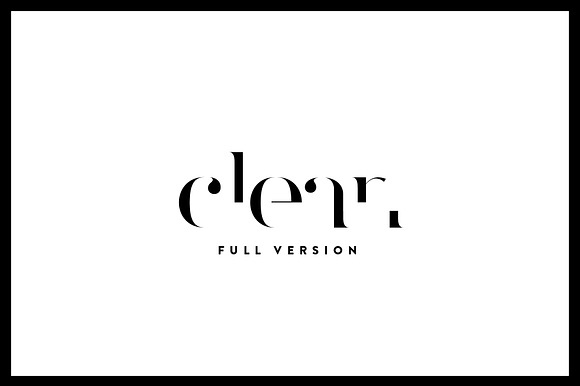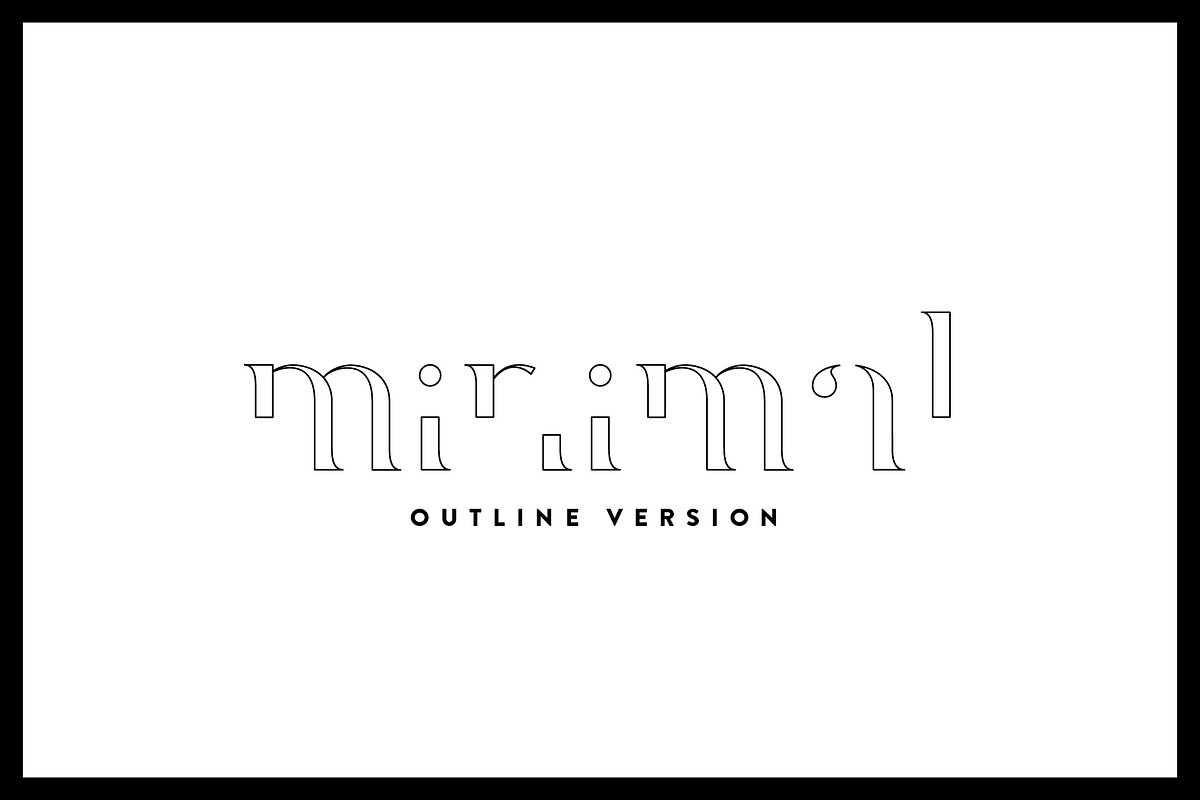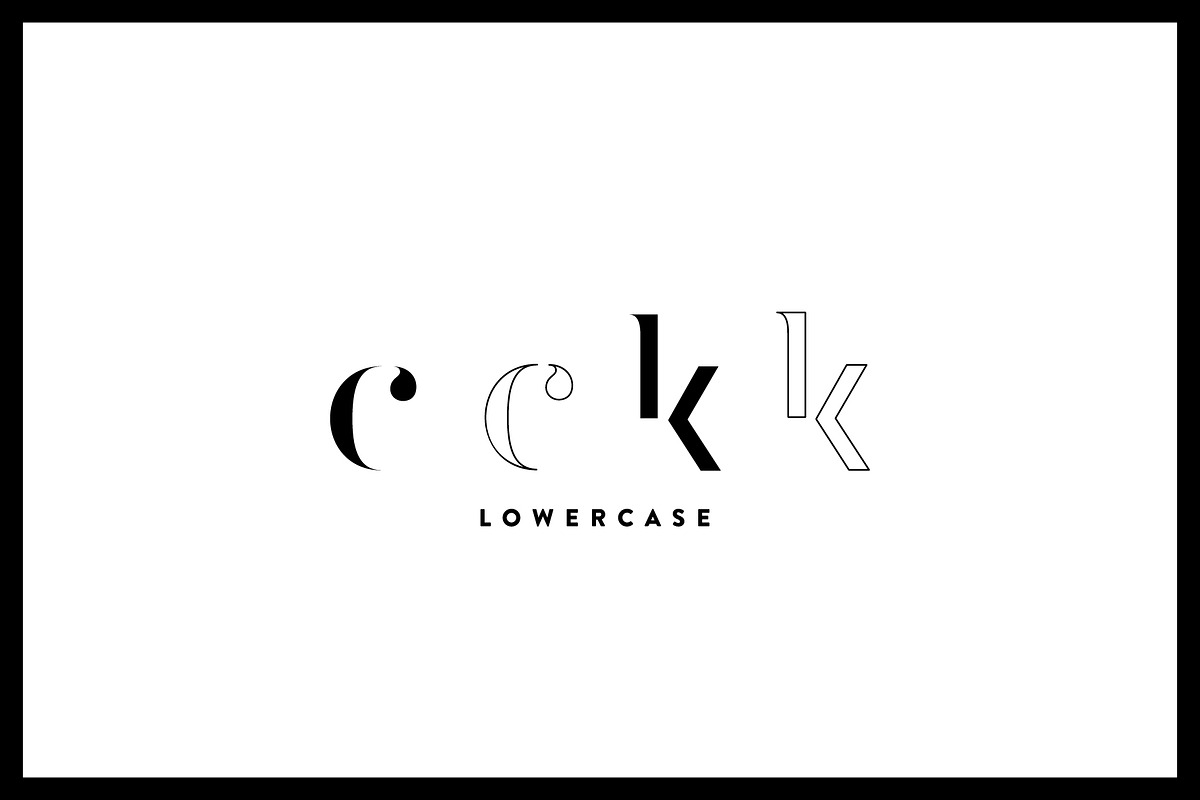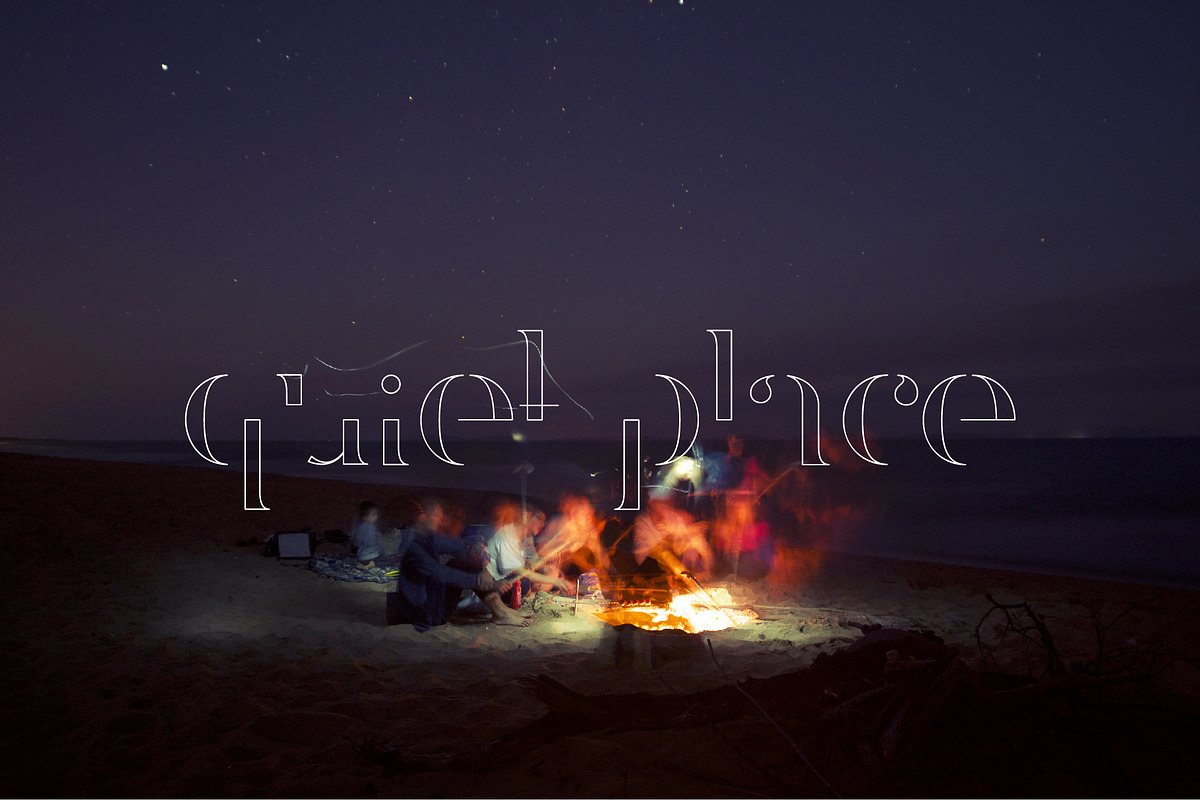
Breathy - Font family
Breathy - Font family - Clean & Minimalist type
- Lowercase Characters
- Breathy Full Regular
- Breathy Outline Regular
Breathy - Font family by Fiona Poupeau fits naturally into Branding, posters, packaging, typography.